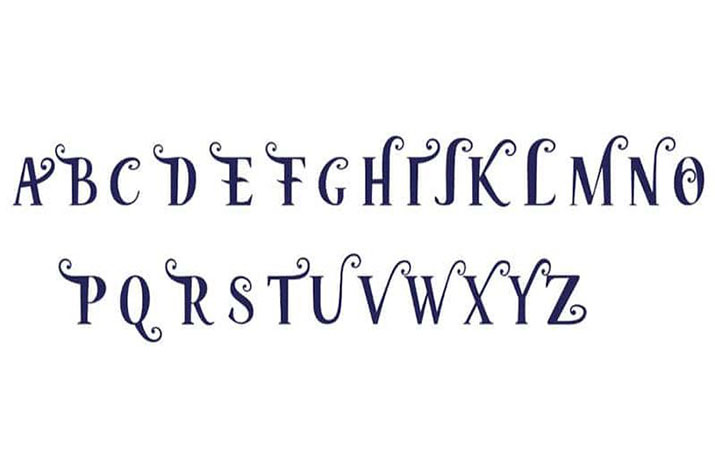
Little Mermaid Font (Details)
- This is a great choice for logos, social media posters, flyers, brochure layouts, book covers, comic books, video titles, website headlines, game text forms, and many other similar things.
The film title lettering in the poster is very similar to a font named Mermaid designed by DeviantArt user Kustren. It has a rather complete character set, supporting uppercase letters, lowercase letters, numerals, and punctuation marks.